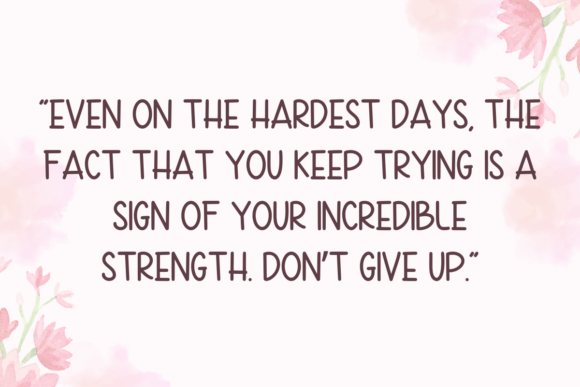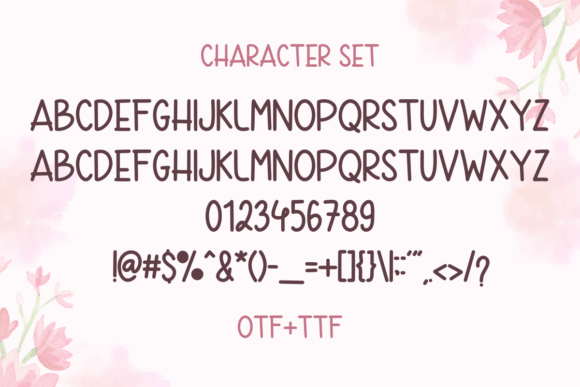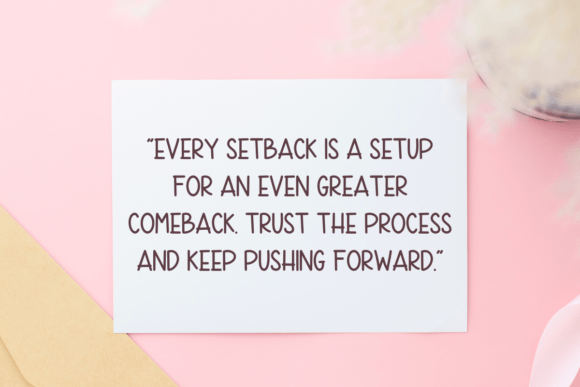
Introduction to Romance Geometric Font
Do you remember the thrill of crafting a handmade card for a loved one, or the satisfaction of creating a unique design for your online store? As creatives, we know that the right font can make all the difference in bringing our ideas to life. That’s why we’re excited to introduce you to the Romance Geometric Font, a delightful and versatile design resource perfect for a wide range of creative projects.
With its playful, handwritten style, the Romance Geometric Font is ideal for crafting, planners, KDP, stickers, and greeting cards. Its high-quality design makes it perfect for Cricut, sublimation, and other DIY projects. What’s more, this font is available for free download, allowing you to add a personal touch to your designs without breaking the bank. Whether you’re a seasoned designer or a crafty enthusiast, the Romance Geometric Font is sure to become a valuable addition to your design arsenal.
Key Features of Romance Geometric Font
- High-quality design resource suitable for various creative projects, including invitations, posters, and social media graphics.
- Unique geometric and romantic style, ideal for adding a touch of elegance to your designs.
- Comes in a single font size, but with multiple styles and weights to cater to different design needs.
- Perfect for designers and artists looking for a high-quality, free design resource to elevate their creative projects.
Honest Review: Romance Geometric Font
I recently had the chance to work with the Romance Geometric Font, and I must say it’s a fantastic design resource for any creative project. ✨ The font’s high quality is immediately noticeable, and it’s perfect for adding a touch of sophistication to your designs.
One of the standout features of this font is its transparent background, which makes it incredibly versatile. You can use it as a standalone font or pair it with other fonts for a unique look. And the best part? It’s a free download, so you can get creative without breaking the bank.
- High-quality design that’s perfect for creative projects ✨
- Transparent background for versatility
- May not be suitable for very large font sizes ⚠️
- Limited ligature support
Overall, I’m impressed with the Romance Geometric Font. It’s a solid addition to any designer’s toolkit, and I’m excited to see how it can elevate my future creative projects.
To get the most out of the Romance Geometric Font, use it in combination with other design elements, such as graphics and images. Experiment with different font sizes, colors, and styles to create a unique and visually appealing design. This font is perfect for creative projects that require a touch of elegance and sophistication.
The Romance Geometric Font is ideal for use in a variety of creative projects, including wedding invitations, birthday cards, and social media graphics. Its unique design and high-quality aesthetic make it a great choice for designers looking to add a touch of romance and elegance to their work.